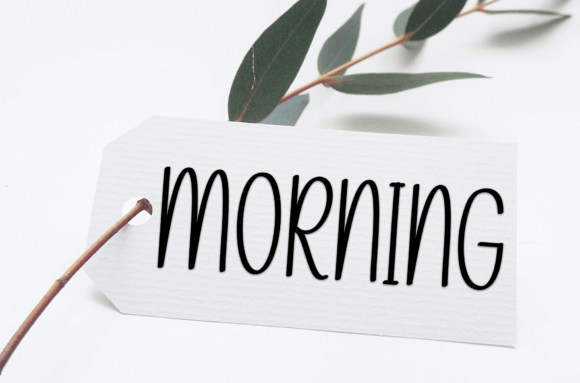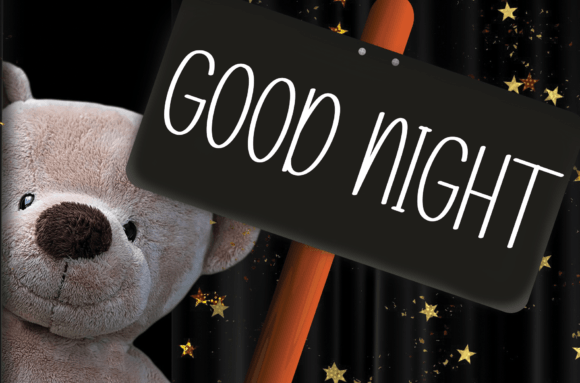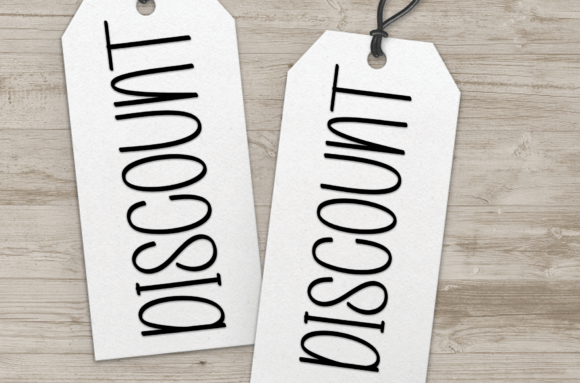
Introduction to Designer Valentine Font
Have you ever found yourself rummaging through your scrapbook from childhood, reminiscing about the adorable Valentine’s Day cards your friends and family made for you? The ones with the hand-drawn hearts, scribbled messages, and vibrant colors that seemed to jump off the page? For designers, recreating that same magic is easier than ever, thanks to the Designer Valentine Font.
This sweet and friendly handwritten font is a treasure trove for designers looking to add a touch of whimsy to their creative projects. Whether you’re crafting wedding invitations, designing greeting cards, or working on any other project that needs a fun and playful vibe, the Designer Valentine Font is an invaluable resource.
What sets this font apart is its high-quality design, available for free download with a transparent background, making it a versatile design resource for any creative endeavor. With its cute and creative style, the Designer Valentine Font is a must-have for designers who want to add a personal touch to their work.
Key Features of Designer Valentine Font
- Unique and elegant design for creative projects, perfect for adding a touch of romance to your designs.
- High-quality font with transparent background, ideal for use on images and graphics with a clear or white background.
- Includes a range of characters, including uppercase and lowercase letters, numbers, and punctuation marks, making it a versatile design resource.
Honest Review: Designer Valentine Font
I recently stumbled upon the Designer Valentine Font while searching for a unique design resource for a creative project. As a designer, I was immediately drawn to its charming and elegant aesthetic, making it perfect for romantic-themed designs.
The font itself is available for free download, which is a major plus in my book. The quality is high, with crisp and clear lines that make it easy to read. I love that it comes with a transparent background, allowing for seamless integration with any design.
- ✨ Unique and elegant design aesthetic
- ✨ High-quality lines and clear typography
- ✨ Transparent background for easy design integration
- ⚠️ Limited font variations (only one style available)
- ⚠️ May not be suitable for non-romantic designs due to its Valentine’s Day theme
Overall, I’m impressed with the Designer Valentine Font. It’s a great addition to any designer’s toolkit, especially for those working on romantic or Valentine’s Day-themed projects. However, its limitations may restrict its use in other creative contexts.
The Designer Valentine Font is a unique and high-quality design resource perfect for creative projects. It’s available for free download and features a transparent background, making it easy to customize and integrate into various designs.
The Designer Valentine Font is perfect for Valentine’s Day-themed projects, wedding invitations, and romantic getaways. It’s also great for creating elegant and sophisticated designs for businesses and events.